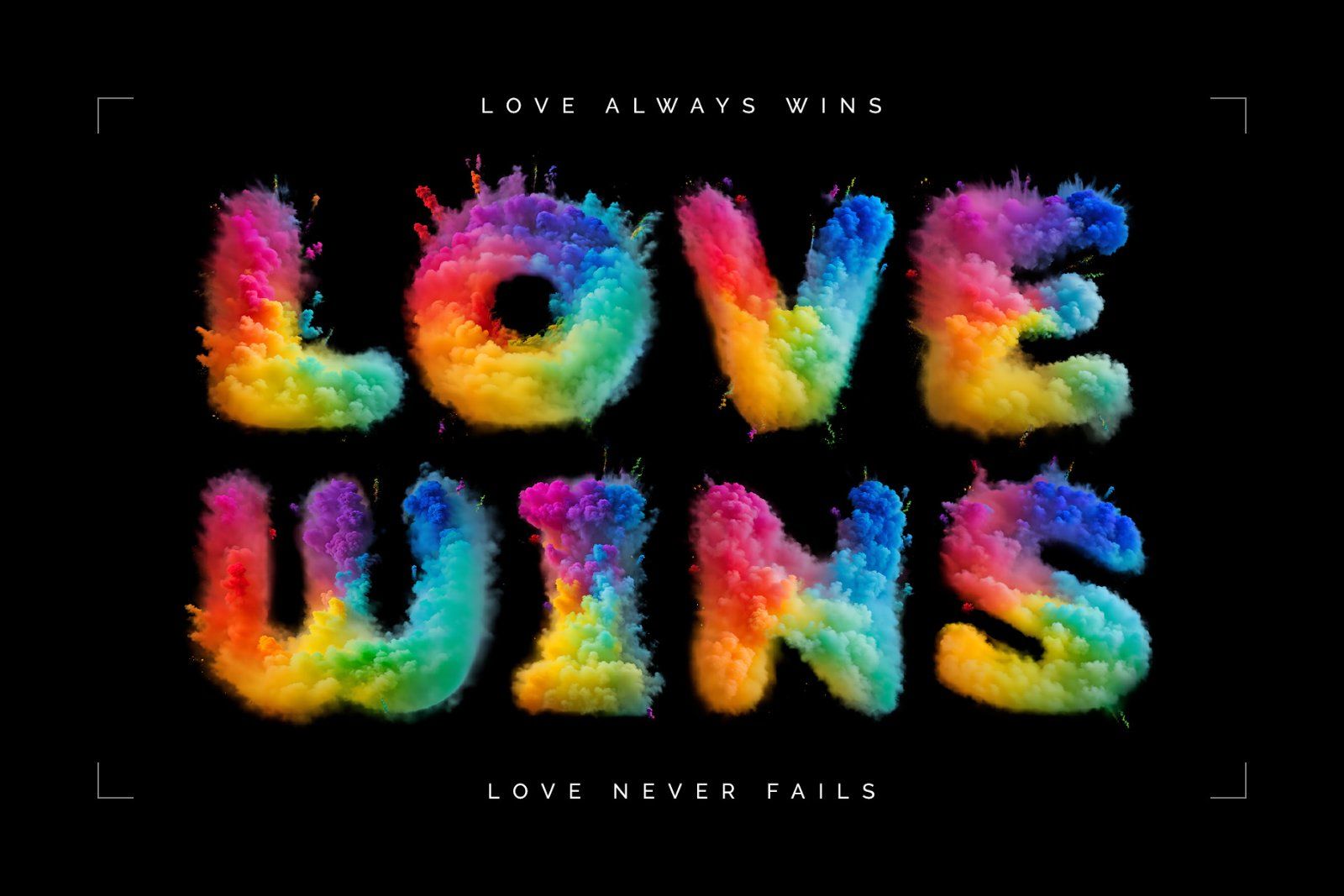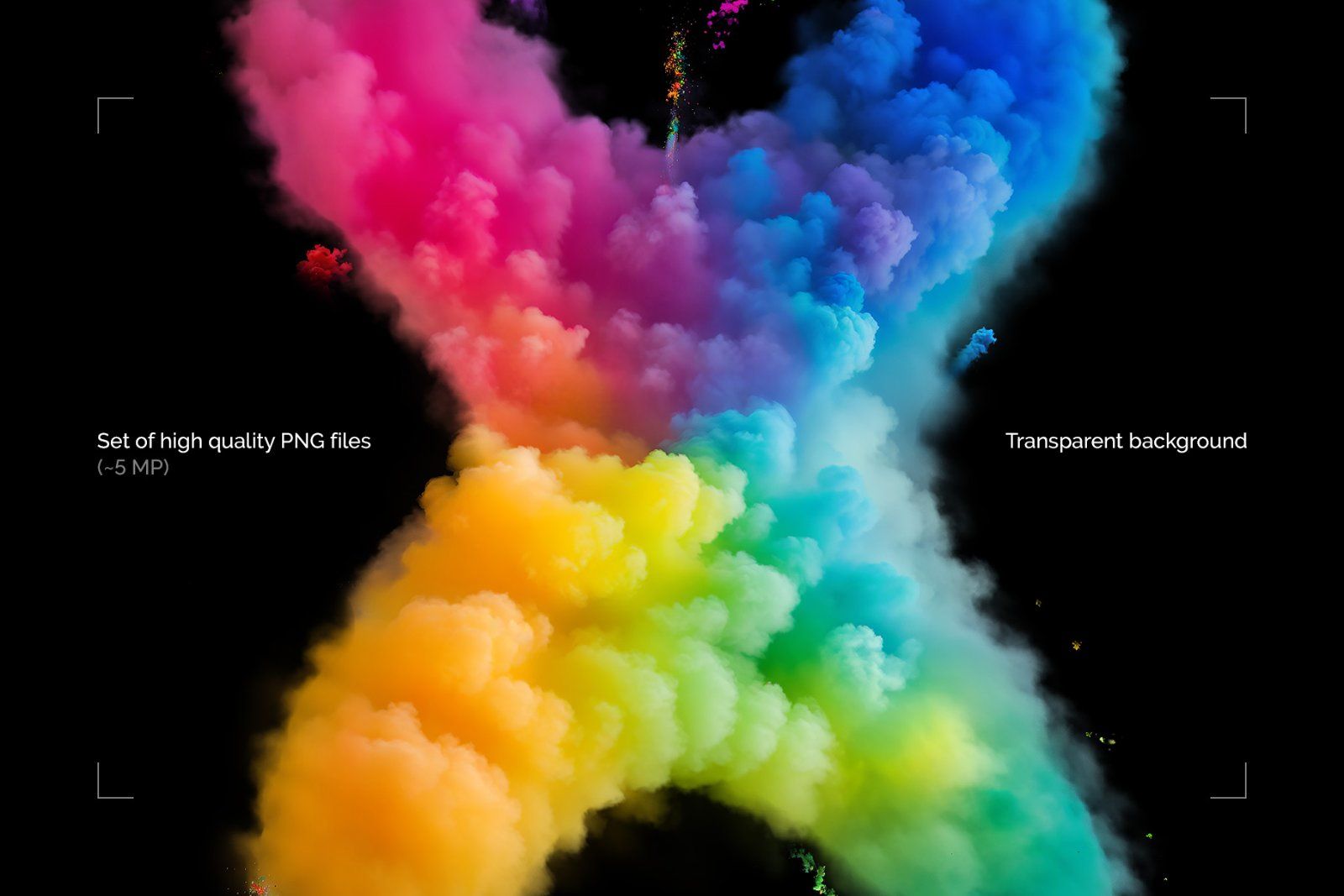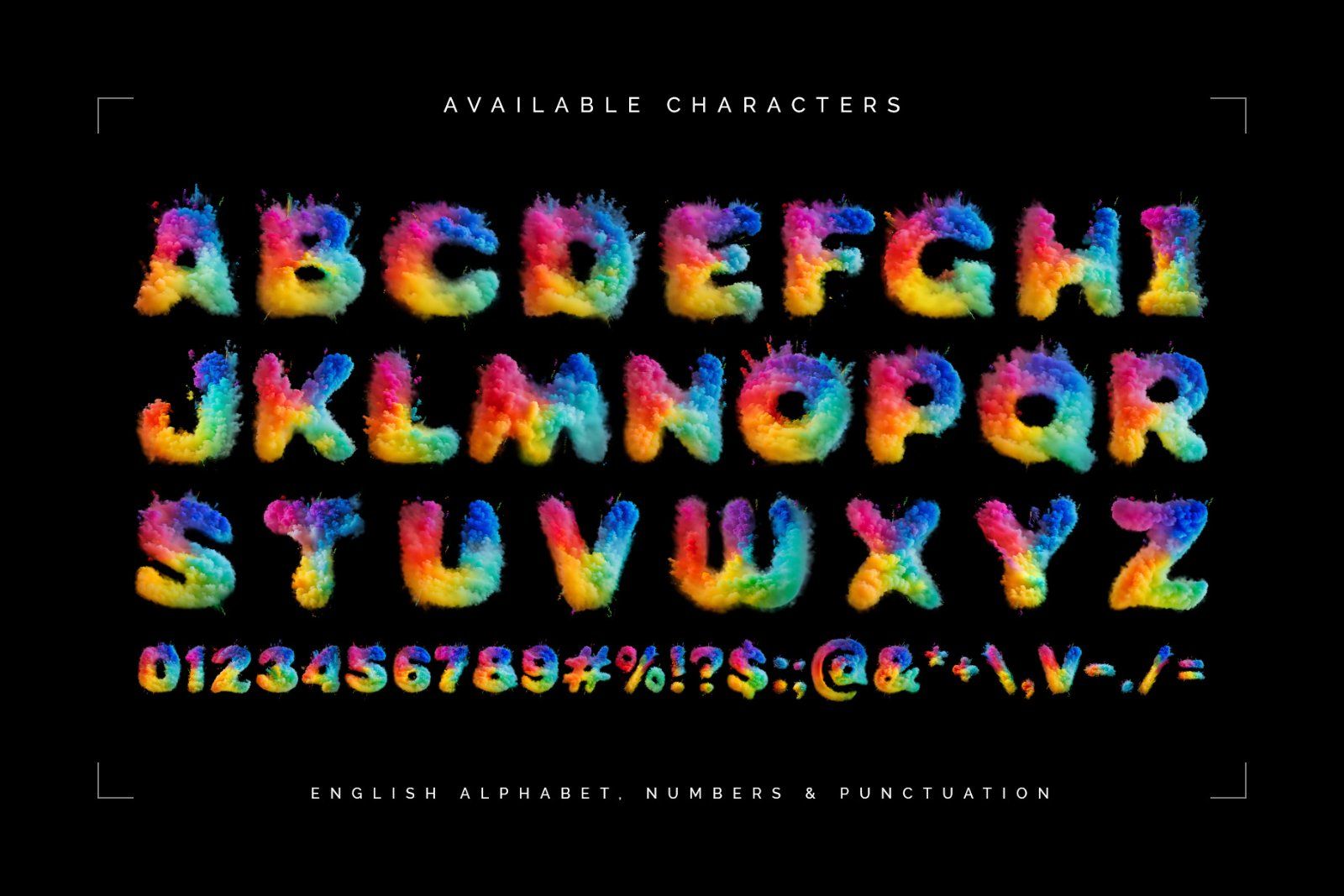
Hello! Presenting bright color font named Rainbow Pow with letters made of smoky powder. This font was made using an amazing and trending nowadays generative Ai technology.
First of all, it's a color bitmap OpenType-SVG font that can be used as a usual OTF font. The resolution of an OTF file is roughly 500 px height. An included PNG files with transparent background has about 5 megapixels resolution. Please consider that only the English language and basic punctuation are available, please check out the screenshot with all existing characters.